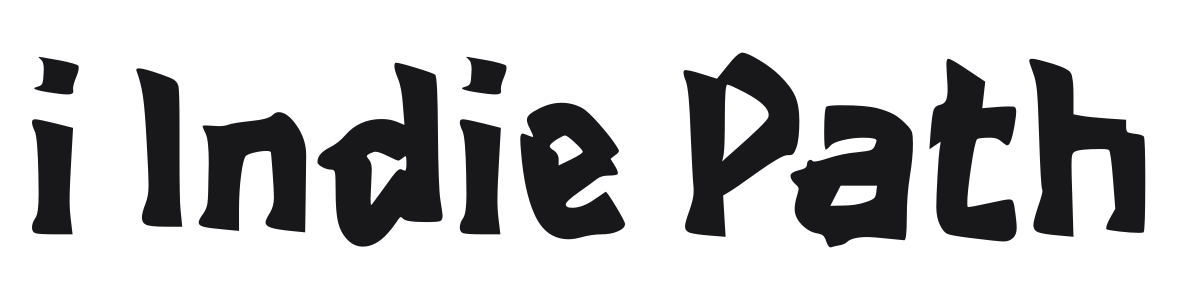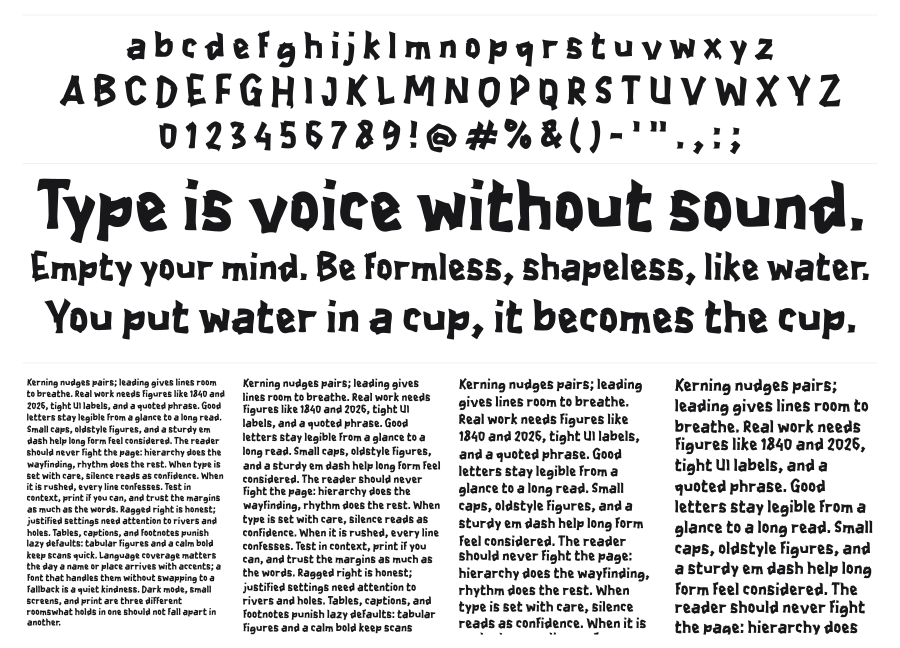
i Indie Path
i Indie Path is a heavy display font with rough, irregular strokes that feel hand-cut rather than drawn. Each character has notched terminals and erratic weight distribution that give it a raw, underground energy. It works at large sizes where its deliberately imperfect personality can breathe.